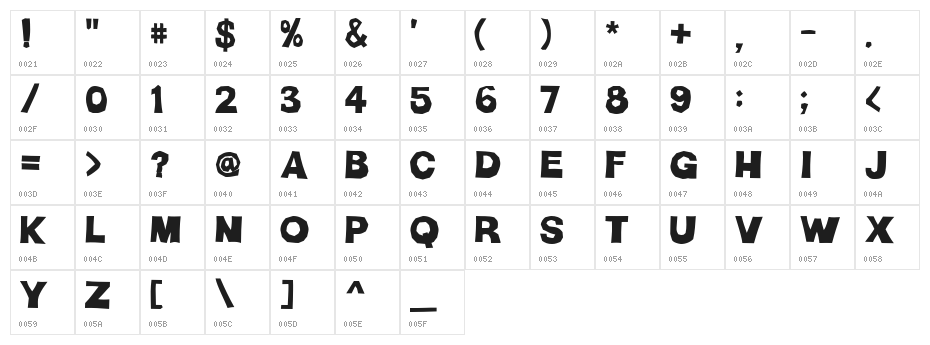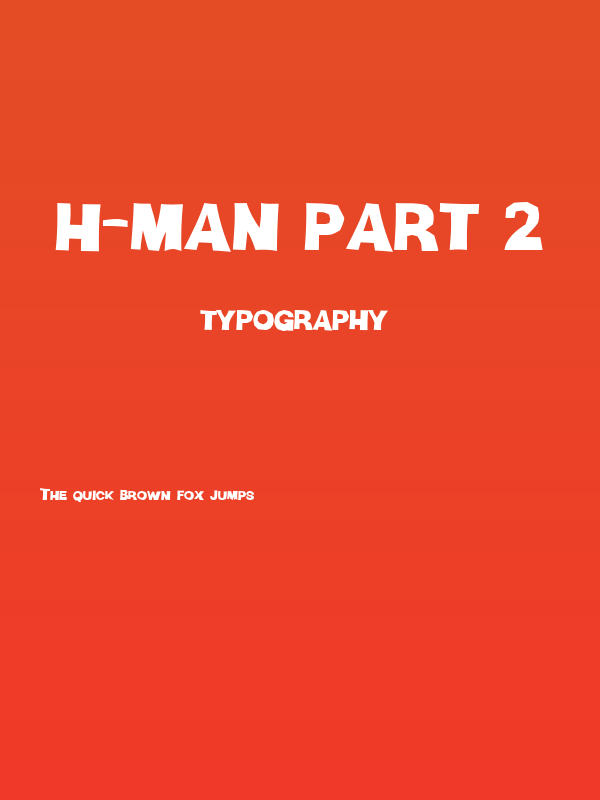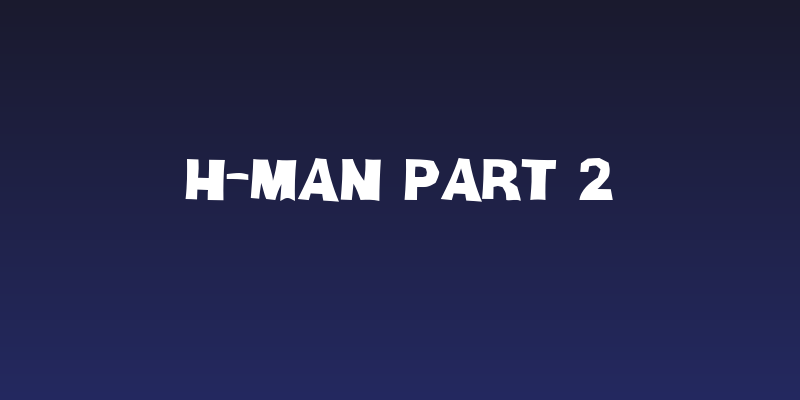
H-Man Part 2 Font
H-Man Part 2 Description
This font features a bold and dynamic style with a slightly irregular and hand-crafted appearance. The characters have a strong presence, with thick strokes and a playful, energetic vibe. The uppercase and lowercase letters maintain a consistent weight, contributing to the font's robust and impactful look. The numbers and special characters follow the same bold design, ensuring uniformity across all glyphs. The font's unique style makes it suitable for projects that require a standout, attention-grabbing typeface.
| Proposed Projects | Ideal for posters, headlines, branding, and any design needing a bold statement. |